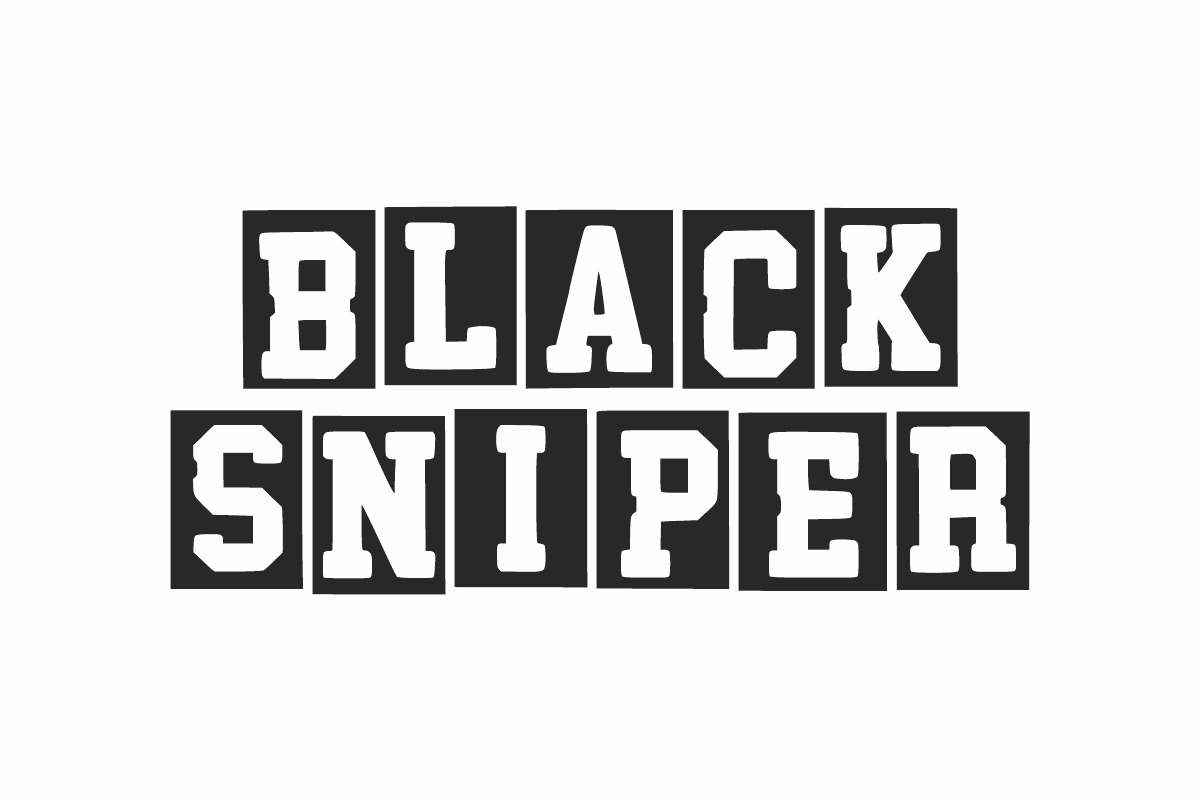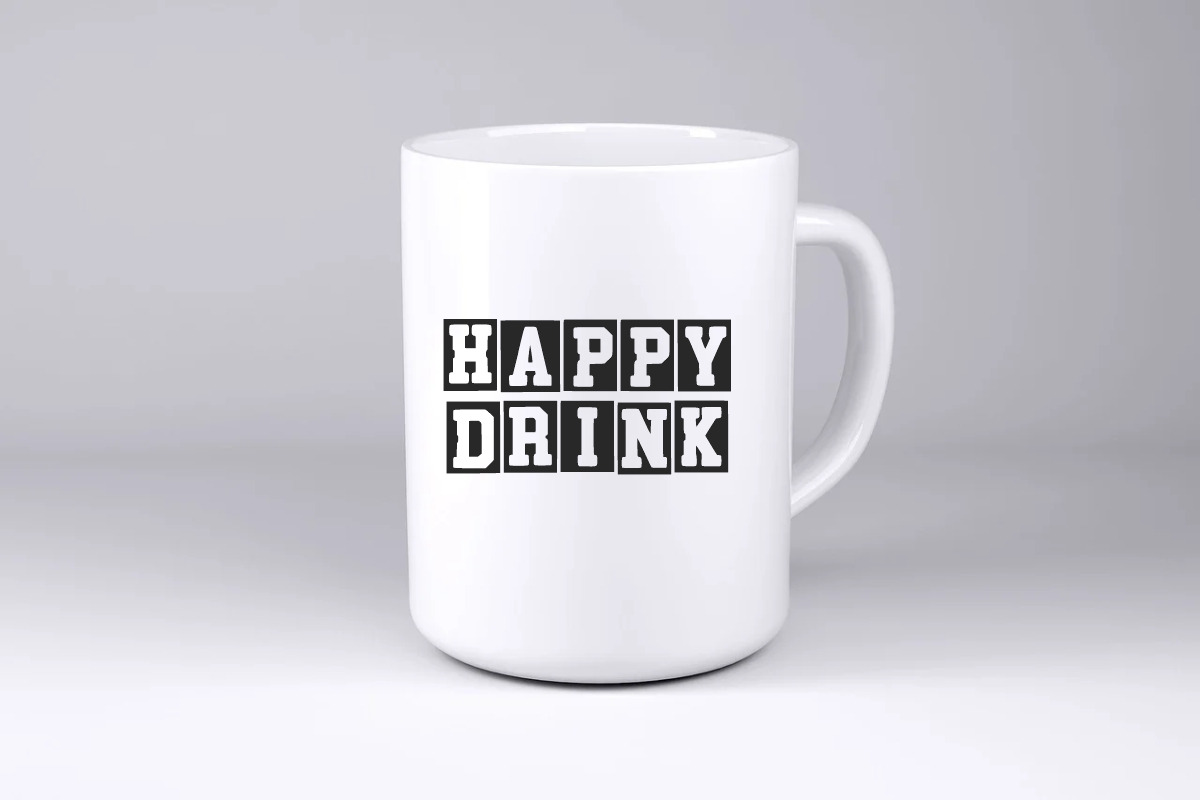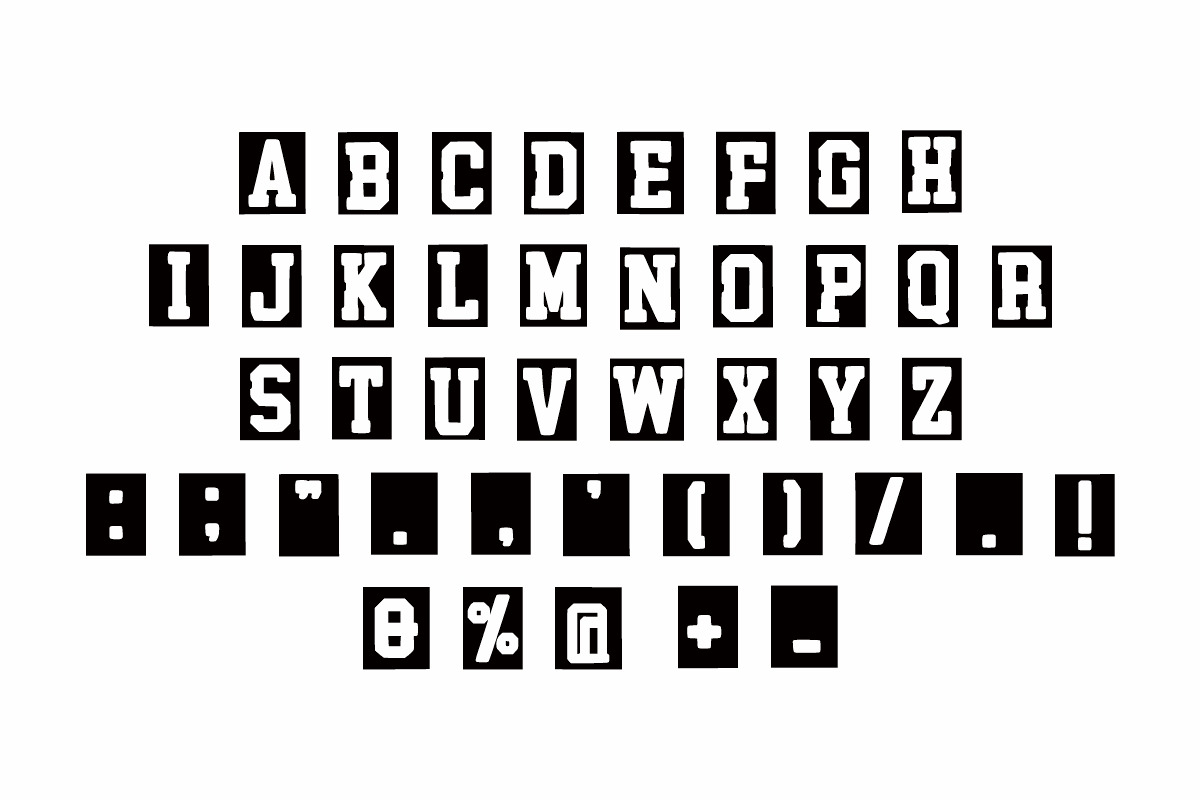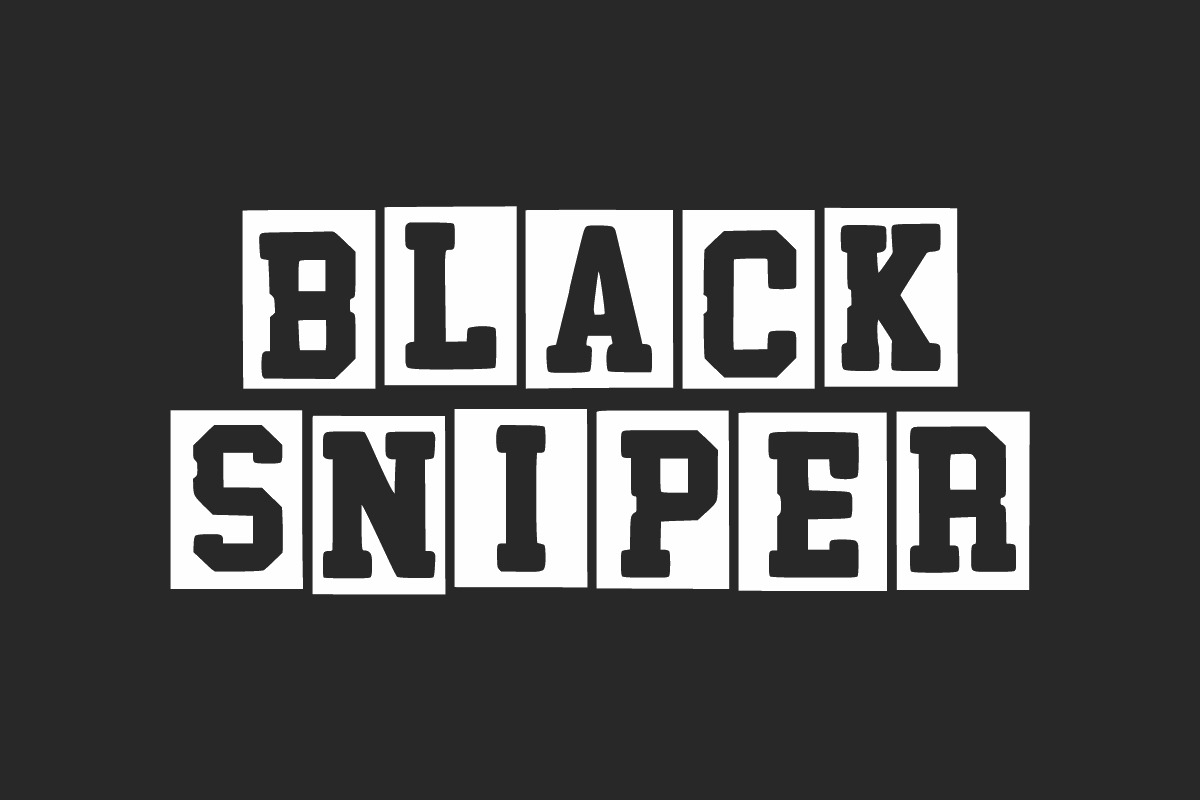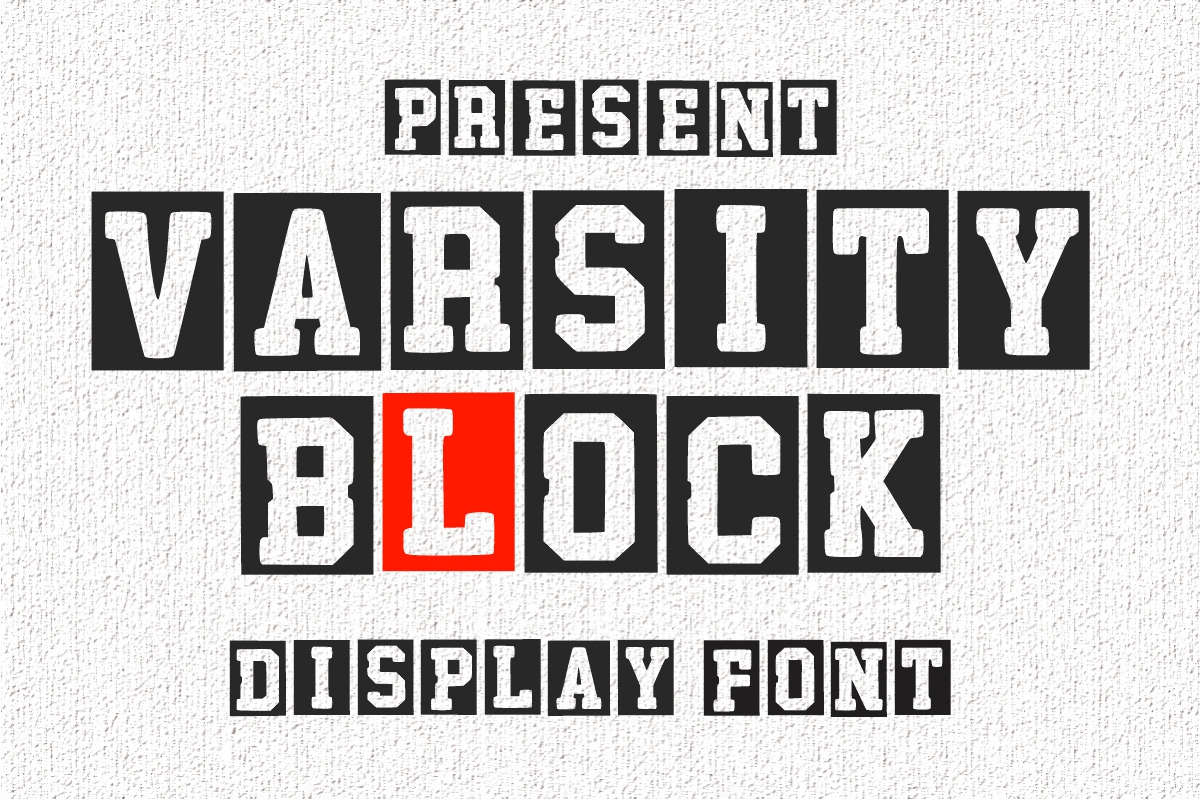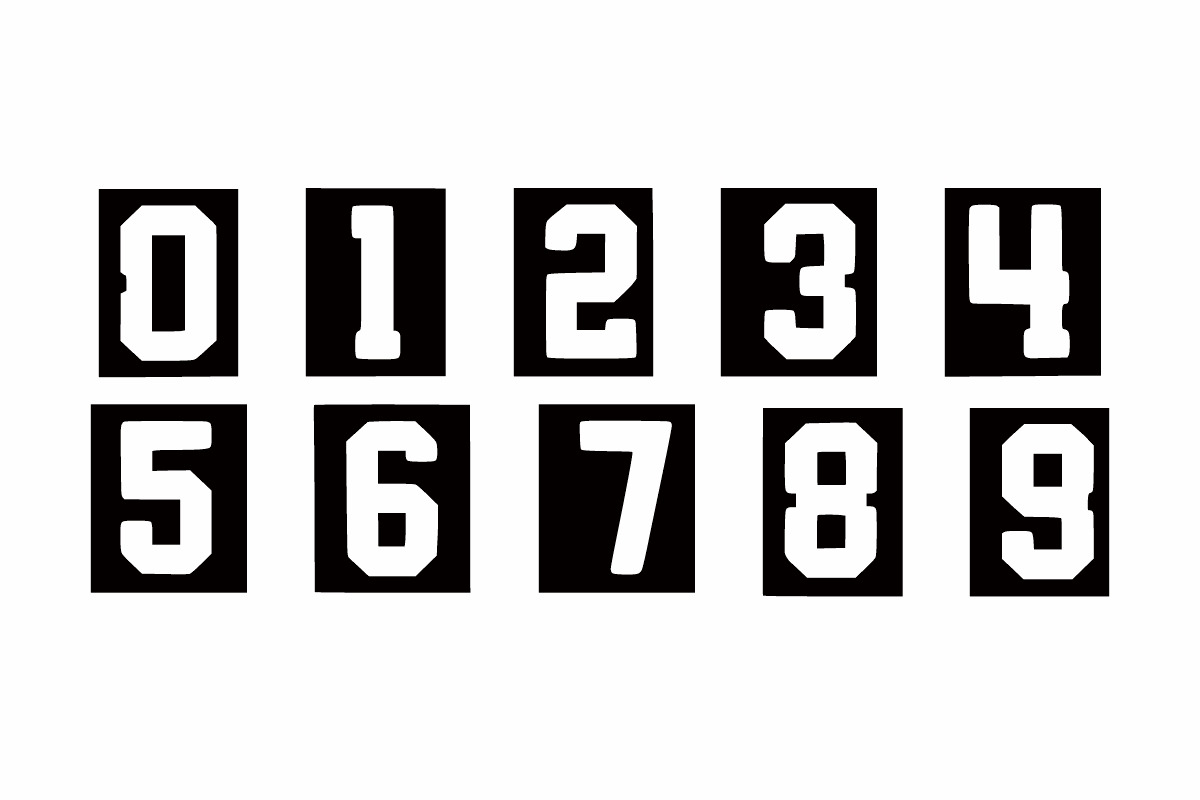
Varsity Block font
Varsity Block is a bold, collegiate-style display font that captures the essence of school spirit and varsity pride. With its blocky, athletic letterforms, it’s perfect for sports team branding, apparel, posters, and high school or college event designs. Classic, powerful, and full of character.